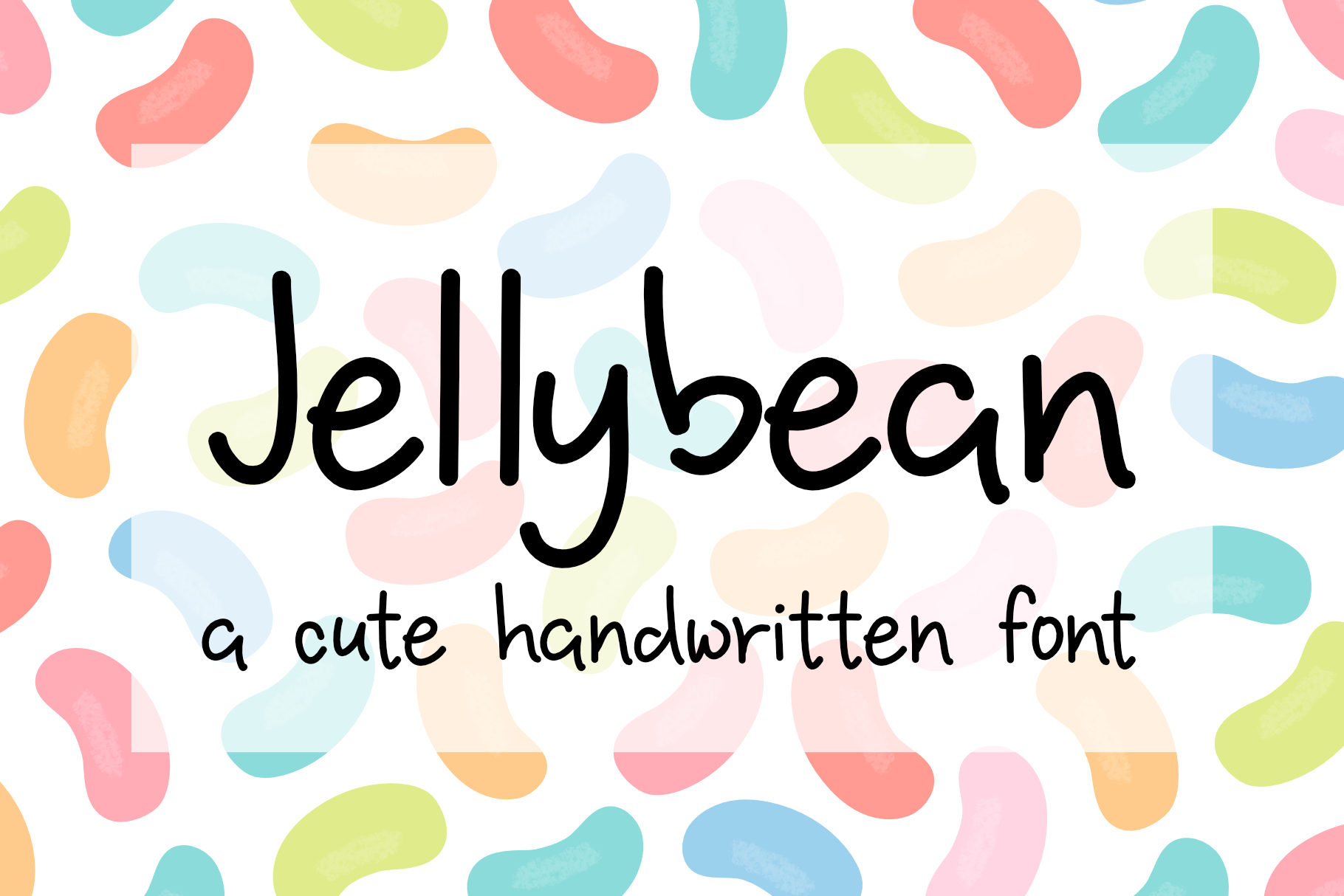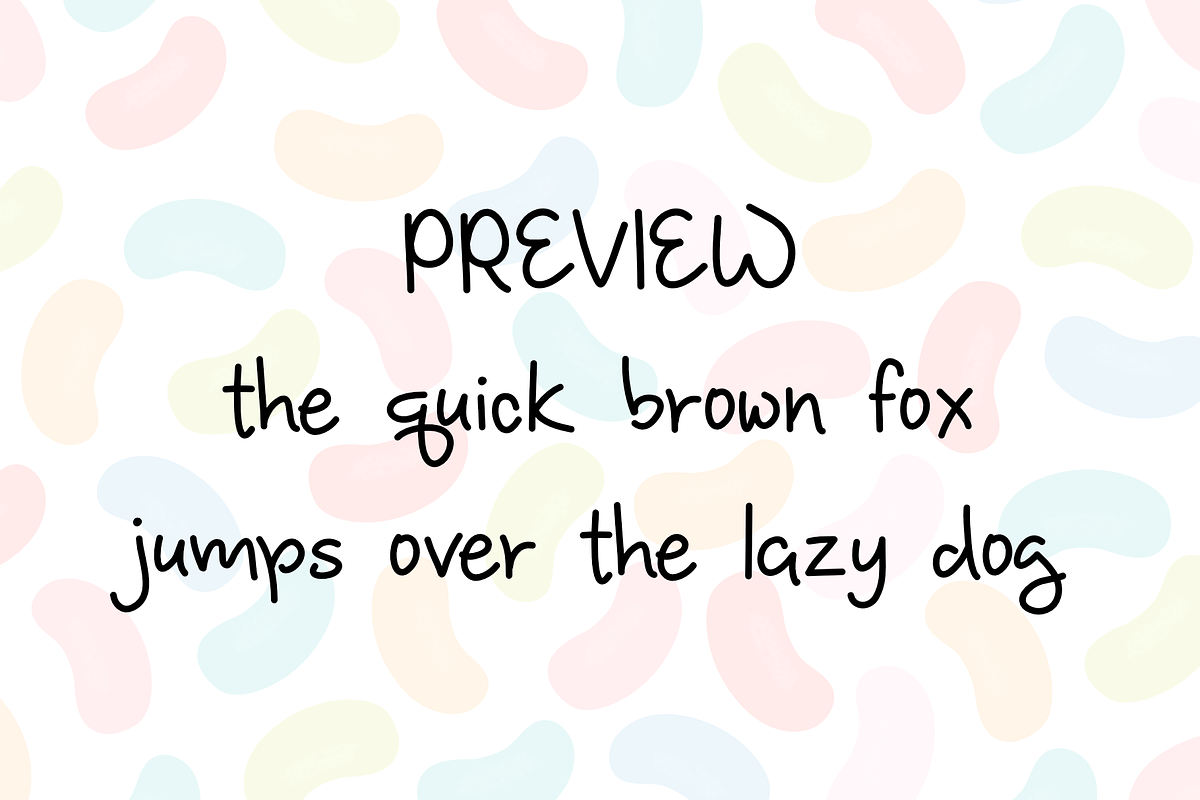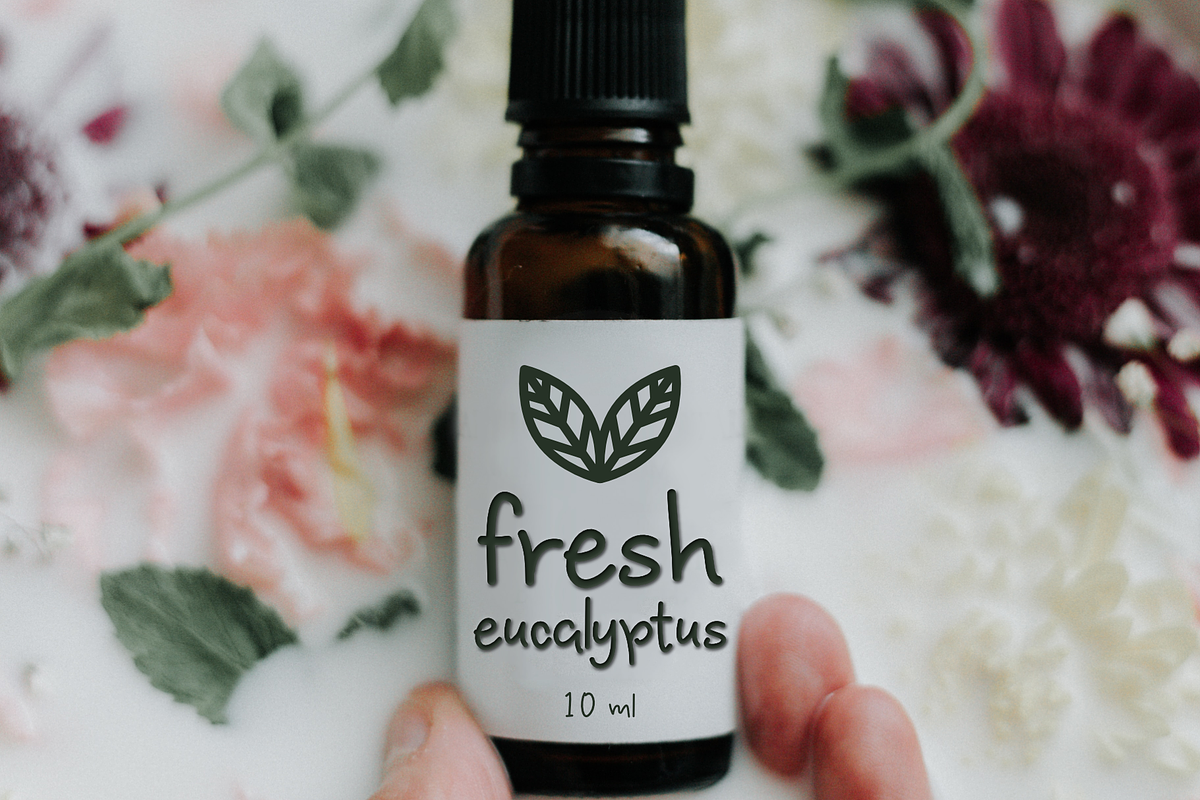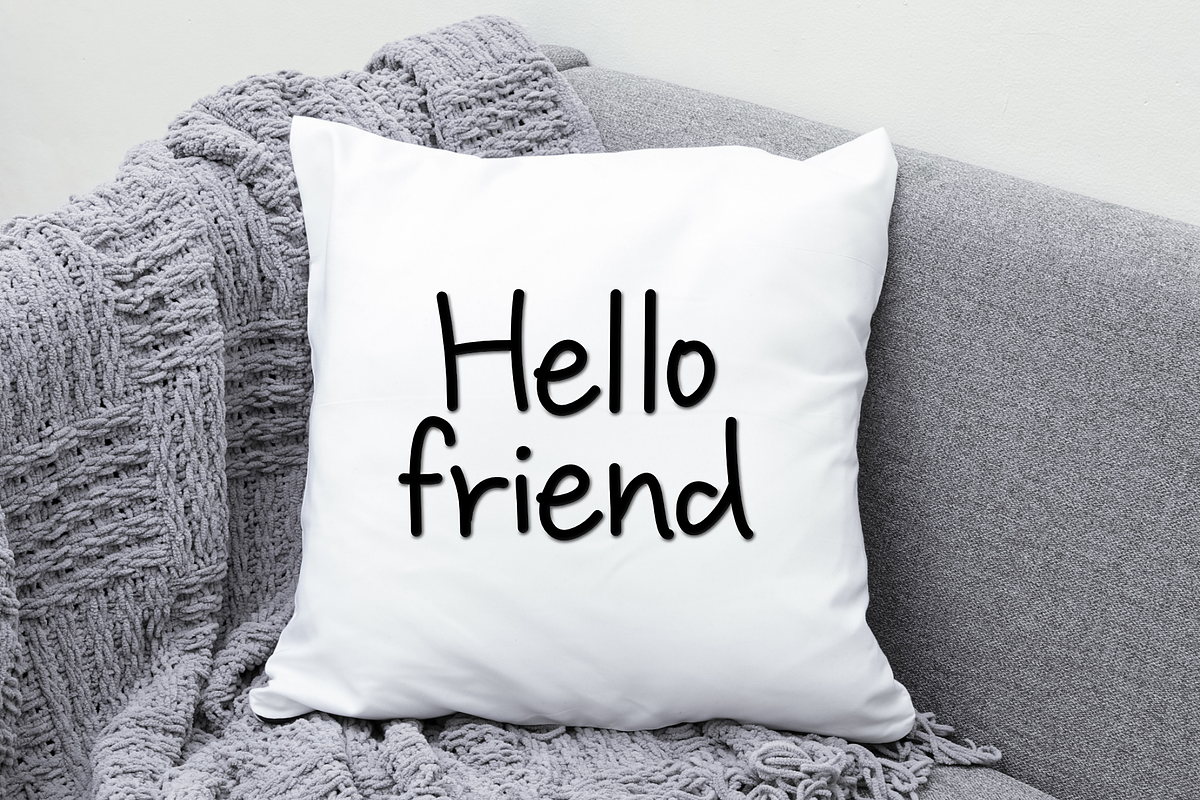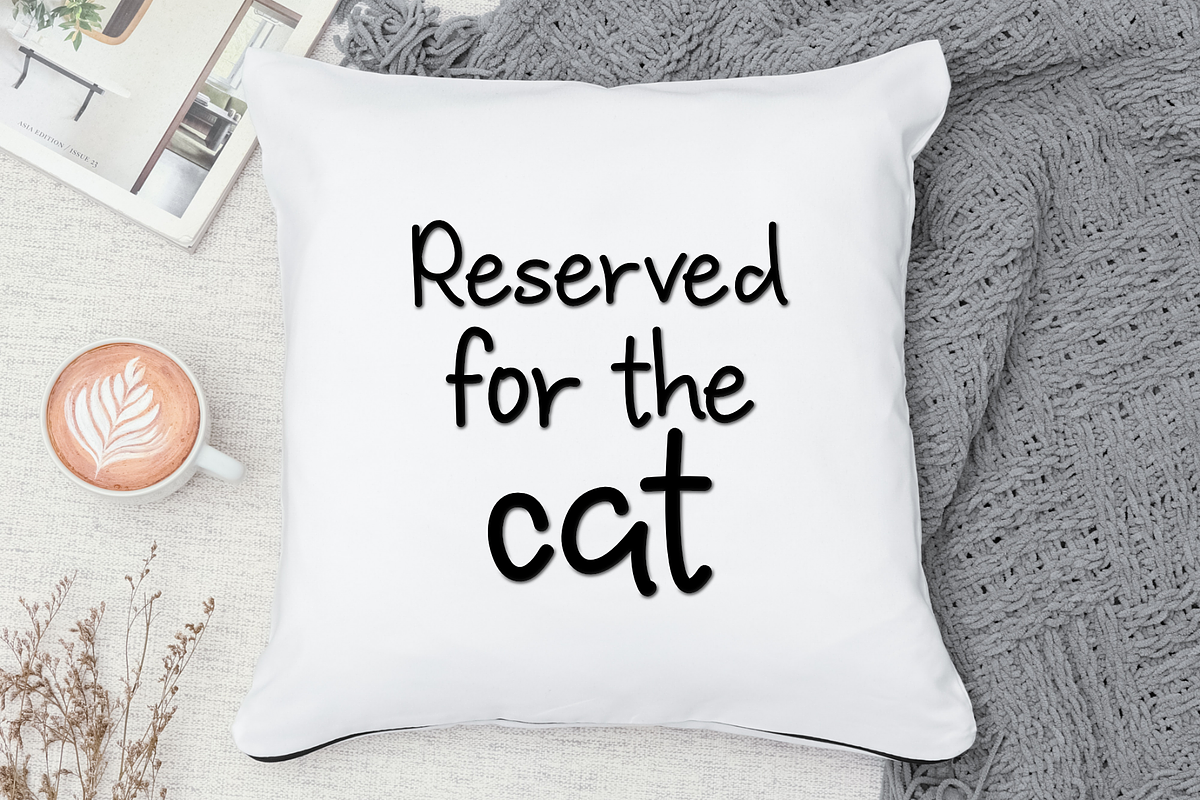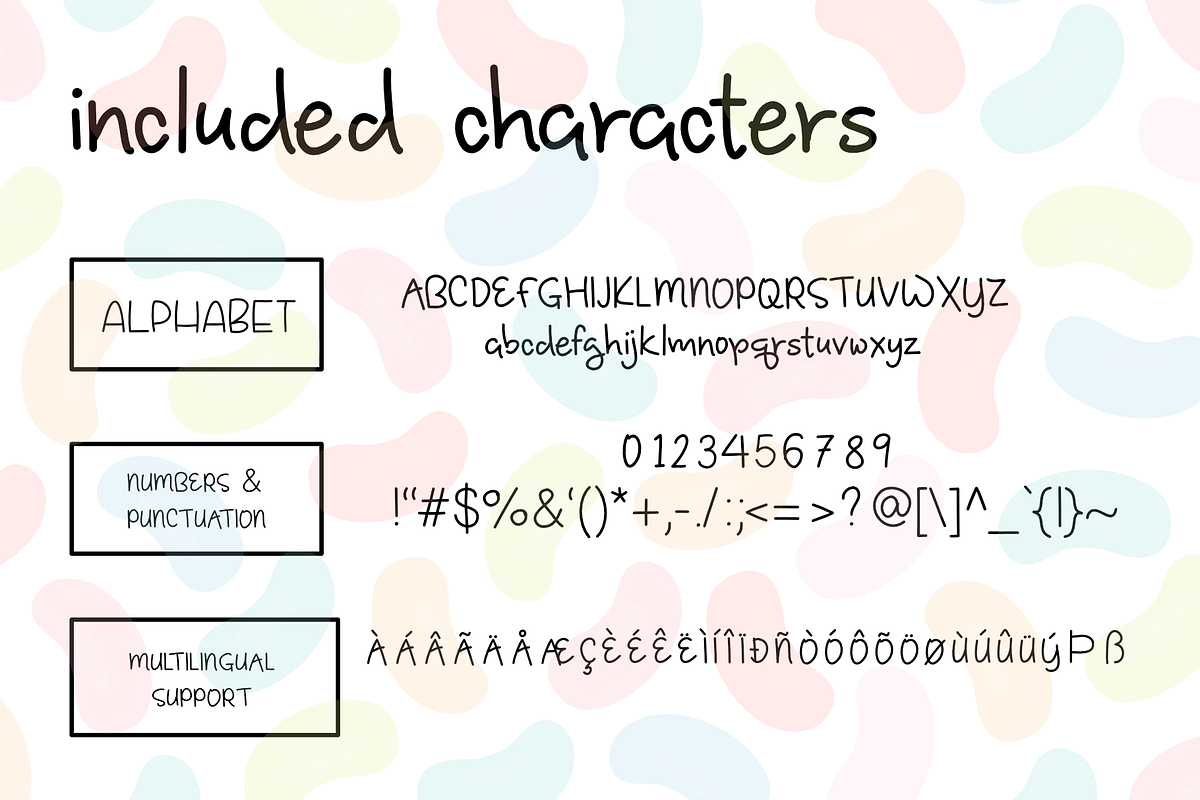
Jellybean | a cute handwritten font
Jellybean is a fun simple handwritten typeface, in the style of sans-serif. You will get the font Jellybean in both .ttf and .otf